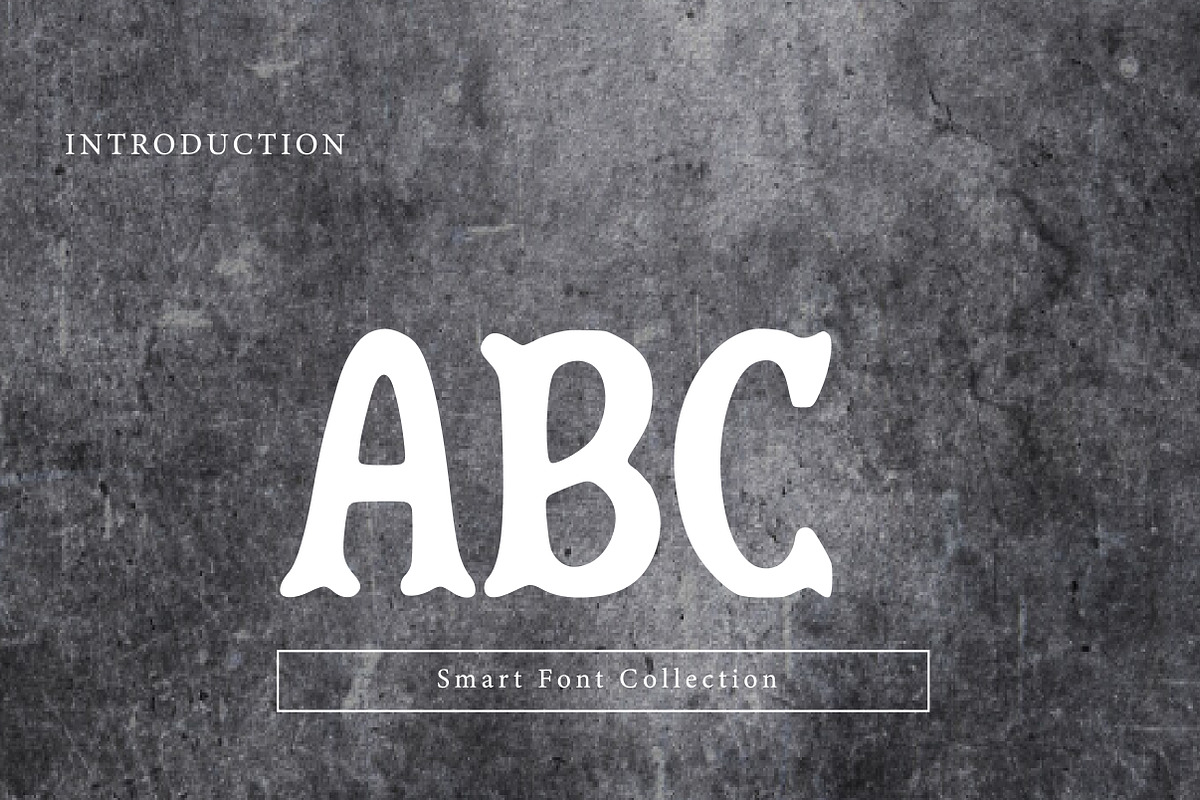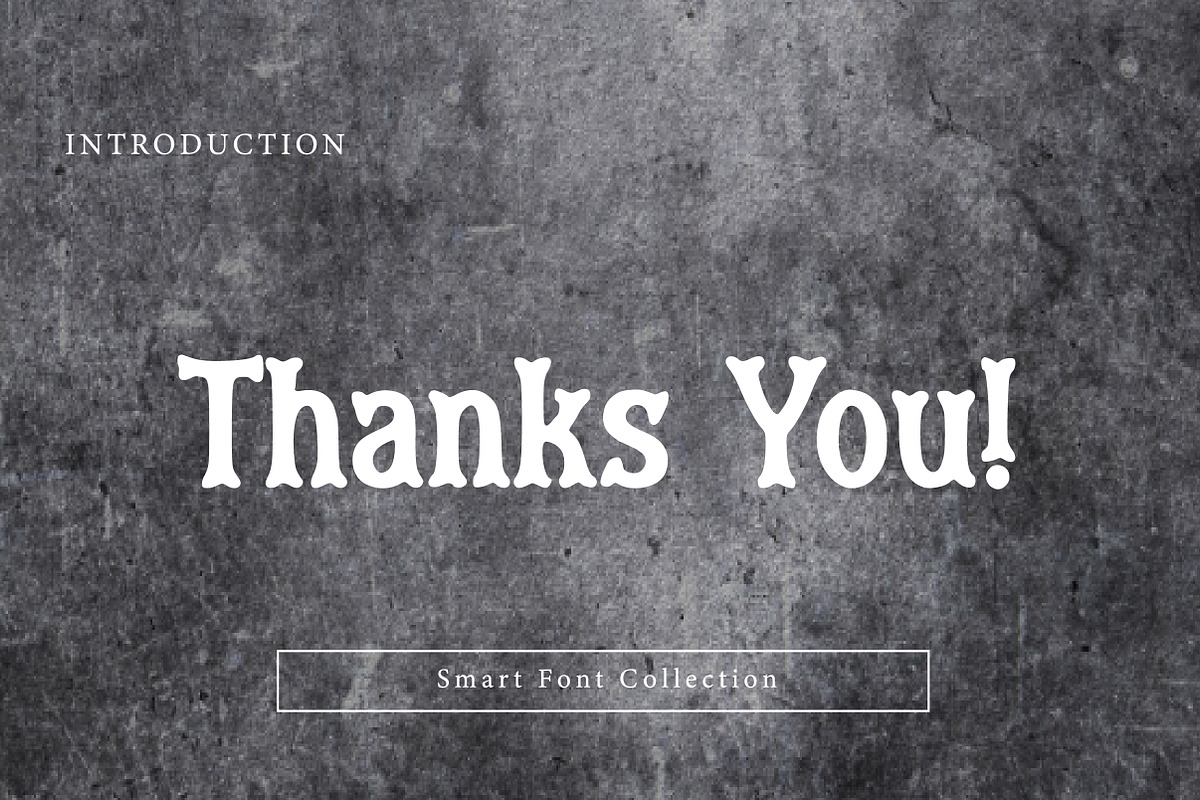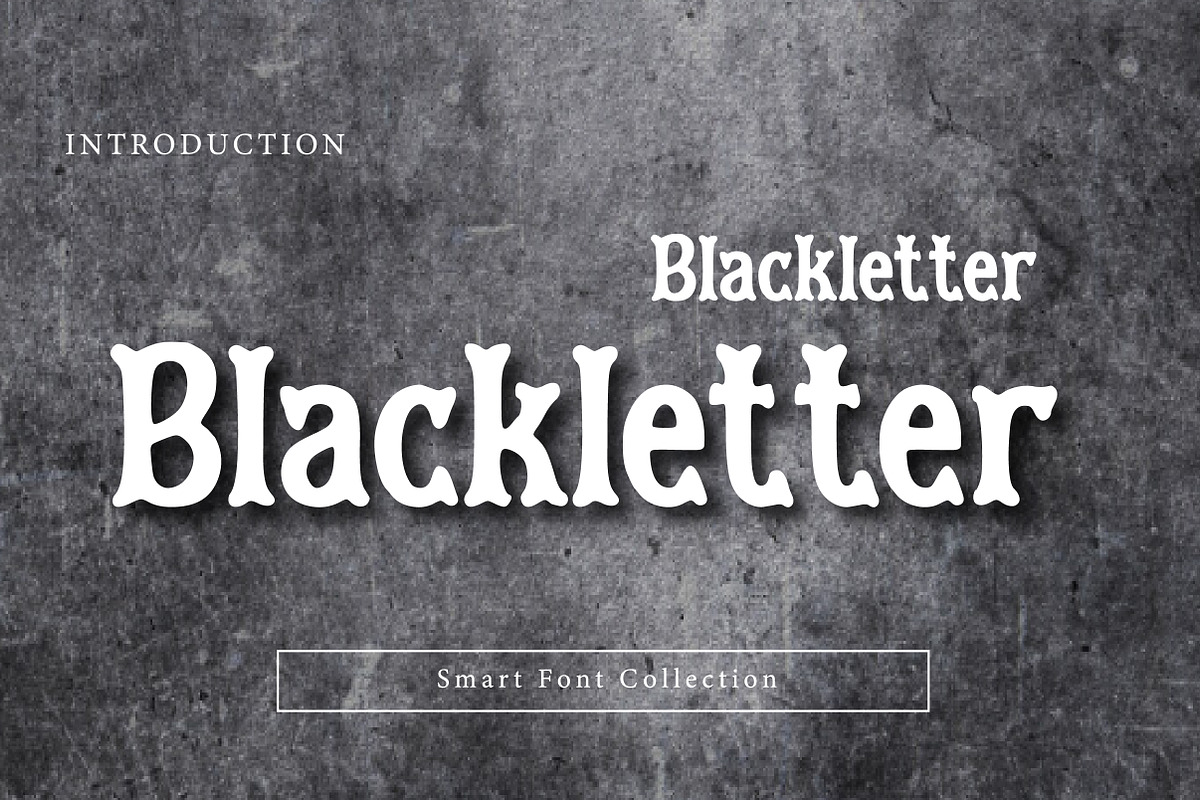
Blackletter
Blackletter is a bold, expressive, and modern take on classic gothic blackletter typography. Designed with thick strokes, playful curves, and a strong handcrafted personality, this display font delivers a powerful visual impact while maintaining a unique artistic charm. Its heavy letterforms and slightly rough edges create a confident and edgy aesthetic that instantly grabs attention in any design.
This typeface is ideal for creators who want a font that feels dark, dramatic, vintage-inspired, and rebellious, while still looking fresh and contemporary. Whether you're designing logos, poster titles, streetwear branding, album covers, gothic-themed graphics, or bold social media designs—Blackletter adds an unmistakable attitude and style to your work.
Perfect for headlines and statement typography, this font is made to stand out. The strong contrast and iconic blackletter influence make it a great choice for projects that demand boldness, personality, and visual authority.